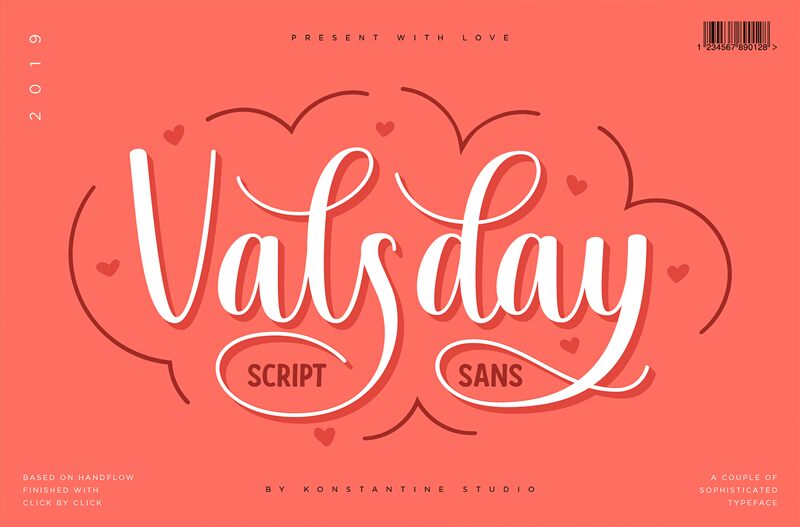
Happy new year! wish you all the best for this 2019. We wish we can provide you a better stuff for this 2019. And the day for the first drop in this new year has come. Please welcome, Valsday
A clean and swashy script typeface with a beautiful flow in every move. Inspired by the modern calligraphic and lettering style to express the OG love that carefully crafted and done by human hand.
Packed up with the bold sans serif version to make it as a good couple. Cause you know the best couple are inseparable.